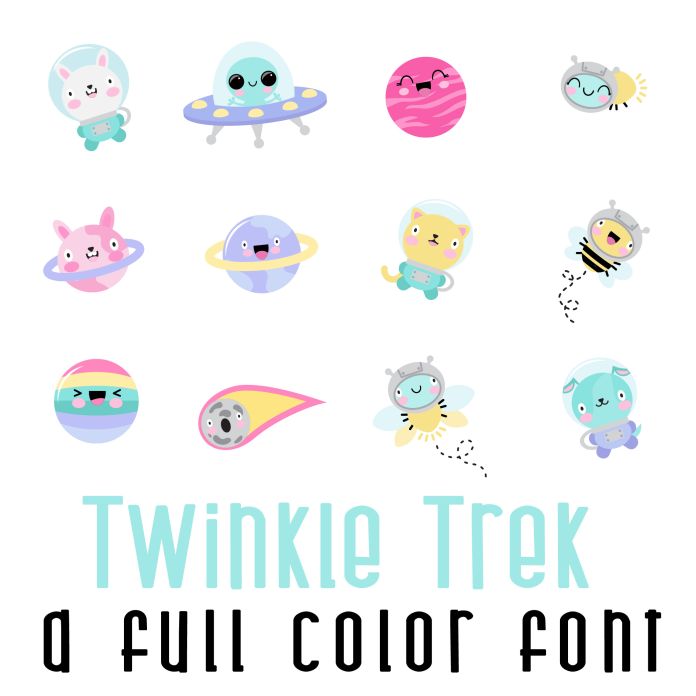
This fun full color font features 26 kawaii style space themed elements. Perfect for classrooms, teachers, gifts, decor, scrap book pages, planner stickers and more!